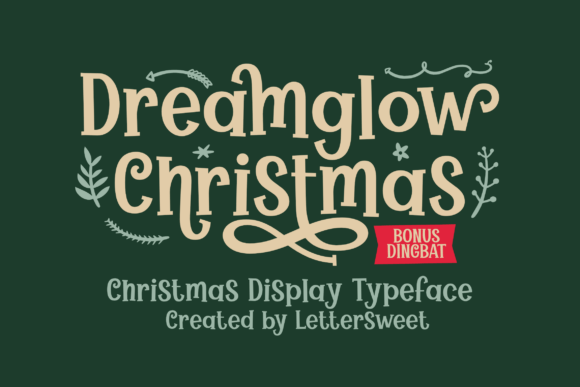
Dreamglow Christmas Font: The Ultimate Festive Display Typeface for Your Holiday Projects
The holiday season is upon us, and with it comes the need for festive and fun designs that capture the magic of Christmas. Whether you’re a designer, a DIY enthusiast, or a business owner looking to create holiday-themed marketing materials, having the right font can make all the difference. That’s where the Dreamglow Christmas Font comes in – a whimsical and festive display typeface designed to bring the joy and warmth of the holiday season to life.
The Charm of Dreamglow Christmas Font
Dreamglow Christmas Font is a carefully crafted typeface that embodies the spirit of Christmas. Its playful curves, soft serifs, and a touch of retro charm make it the perfect choice for any holiday project. The font’s design is inspired by the nostalgia of traditional Christmas decorations, with a modern twist that makes it suitable for a wide range of applications.
Key Features of Dreamglow Christmas Font
- Whimsical and Festive Design: Dreamglow Christmas Font is designed to evoke the magic of the holiday season. Its playful curves and soft serifs give it a friendly and approachable feel that’s perfect for Christmas-themed projects.
- Retro Charm: The font’s retro-inspired design adds a touch of nostalgia to your holiday projects, making them stand out from the crowd.
- Delightful Dingbats: Dreamglow Christmas Font comes with a set of delightful dingbats that can be used to add an extra touch of festivity to your designs.
- Handcrafted Feel: The font’s handcrafted feel gives it a unique and personal touch that’s perfect for holiday projects that require a human touch.
Perfect for Christmas-Themed Projects
Dreamglow Christmas Font is perfect for a wide range of Christmas-themed projects, including:
- Greeting Cards: Create beautiful and festive greeting cards that will make your loved ones feel special.
- Holiday Banners: Design eye-catching holiday banners that will grab attention and spread cheer.
- Festive Packaging: Add a touch of magic to your holiday packaging with Dreamglow Christmas Font.
- Social Media Graphics: Create festive social media graphics that will make your followers feel merry and bright.
Example of Dreamglow Christmas Font in Use
Why Choose Dreamglow Christmas Font?
With so many fonts to choose from, why should you choose Dreamglow Christmas Font for your holiday projects? Here are just a few reasons:
- Unique and Festive Design: Dreamglow Christmas Font is a one-of-a-kind typeface that’s specifically designed for the holiday season.
- Easy to Read: Despite its playful design, Dreamglow Christmas Font is easy to read, making it perfect for use in a variety of applications.
- Versatile: The font’s versatility makes it suitable for use in a wide range of holiday projects, from greeting cards to social media graphics.
- High-Quality: Dreamglow Christmas Font is a high-quality typeface that’s designed to deliver exceptional results.
Tips for Using Dreamglow Christmas Font
Here are a few tips for getting the most out of Dreamglow Christmas Font:
- Use it Sparingly: While Dreamglow Christmas Font is perfect for holiday projects, it’s best to use it sparingly to avoid overwhelming your design.
- Pair it with Other Fonts: Consider pairing Dreamglow Christmas Font with other fonts to create a unique and visually appealing design.
- Experiment with Colors: Don’t be afraid to experiment with different colors to find the perfect combination for your holiday project.
Example of Dreamglow Christmas Font Paired with Other Fonts
Dreamglow Christmas Font is the perfect choice for anyone looking to add a touch of magic to their holiday projects. With its whimsical and festive design, playful curves, and soft serifs, this font is sure to bring joy and warmth to your designs. Whether you’re designing greeting cards, holiday banners, or festive packaging, Dreamglow Christmas Font is the ultimate festive display typeface that’s sure to deliver exceptional results.